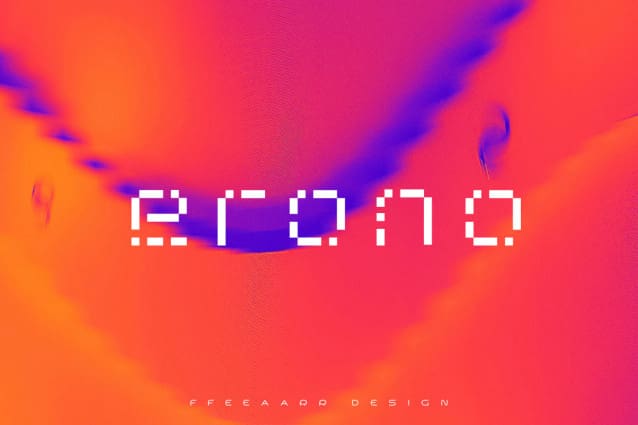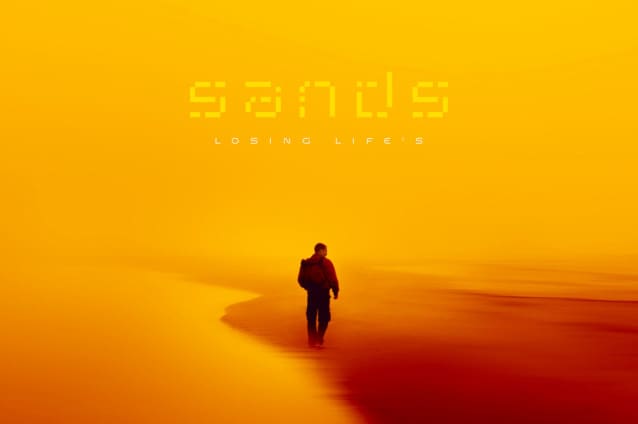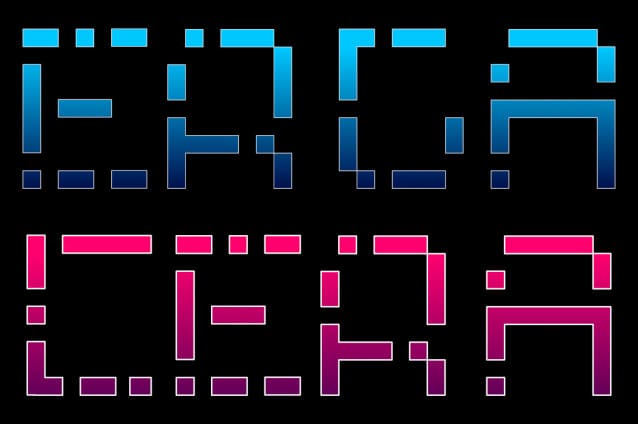
FF Path Font
FF Path Font  —the low-resolution display typeface that takes inspiration from classic computer pixel fonts. FF Path Font is not just your typical pixel typeface – it adds a touch of elegance to the digital age.
Designer Name: ffeeaarr
Classification: Bitmap Pixel Fonts, Techno / Futuristic Fonts